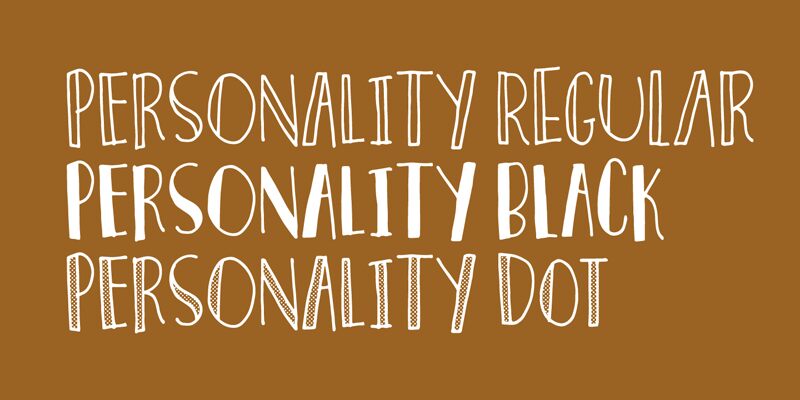
Personality is a captivating display font designed by Jakob Fischer of pizzadude.dk. Its bold, handcrafted strokes exude a sense of confidence and individuality, making it an ideal choice for eye-catching headlines, logotypes, or any design that demands a strong, distinctive presence. The condensed width gives this font an elegant, space-saving quality, allowing it to be used effectively in a variety of contexts, from editorial layouts to packaging design.
Personality's distinctive aesthetic offers a versatile solution for designers seeking to infuse their work with a touch of character and flair.
Personality is my art deco inspired all caps font.
Made with a slightly inky pen, and comes with 7 different versions of each letter. And of course multiple language support!